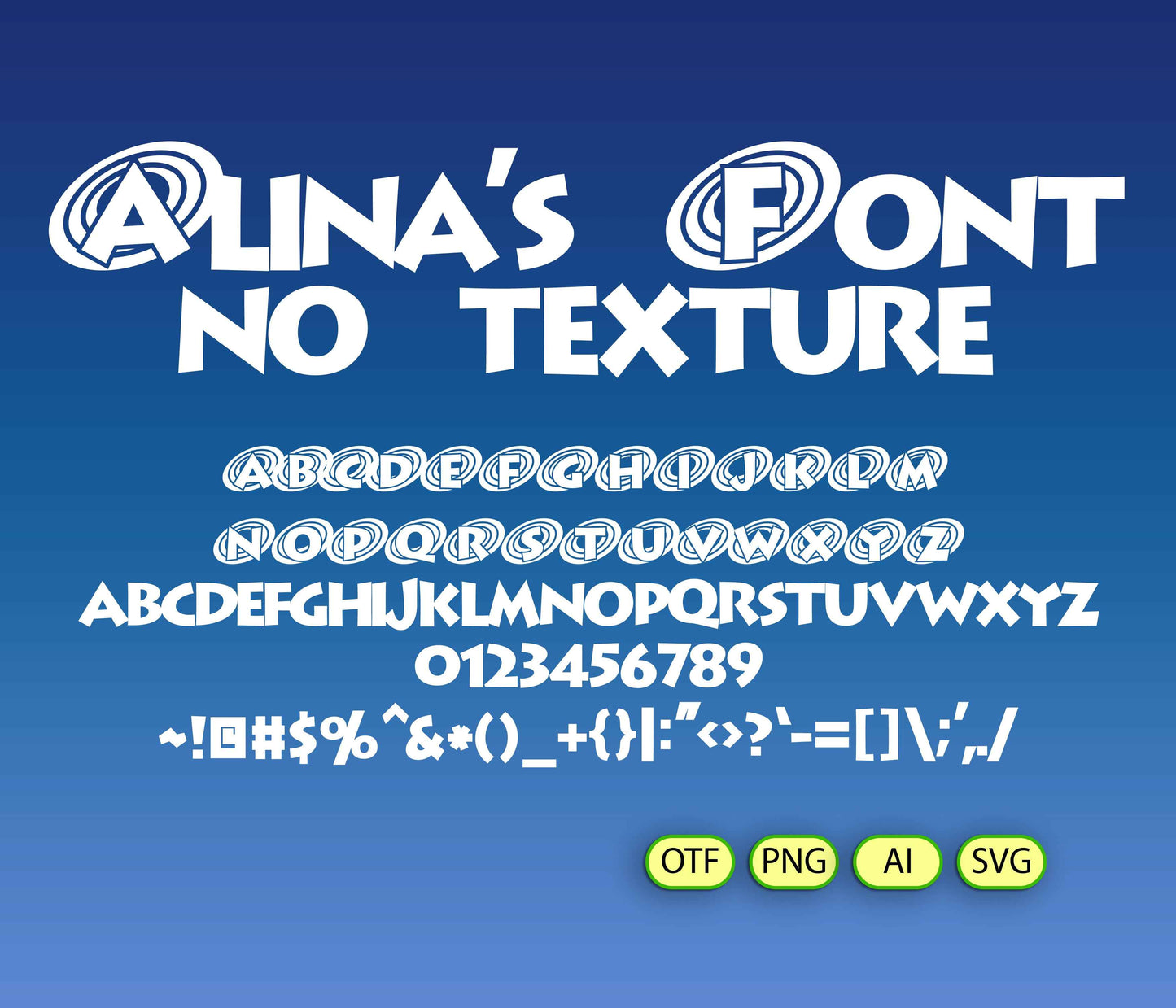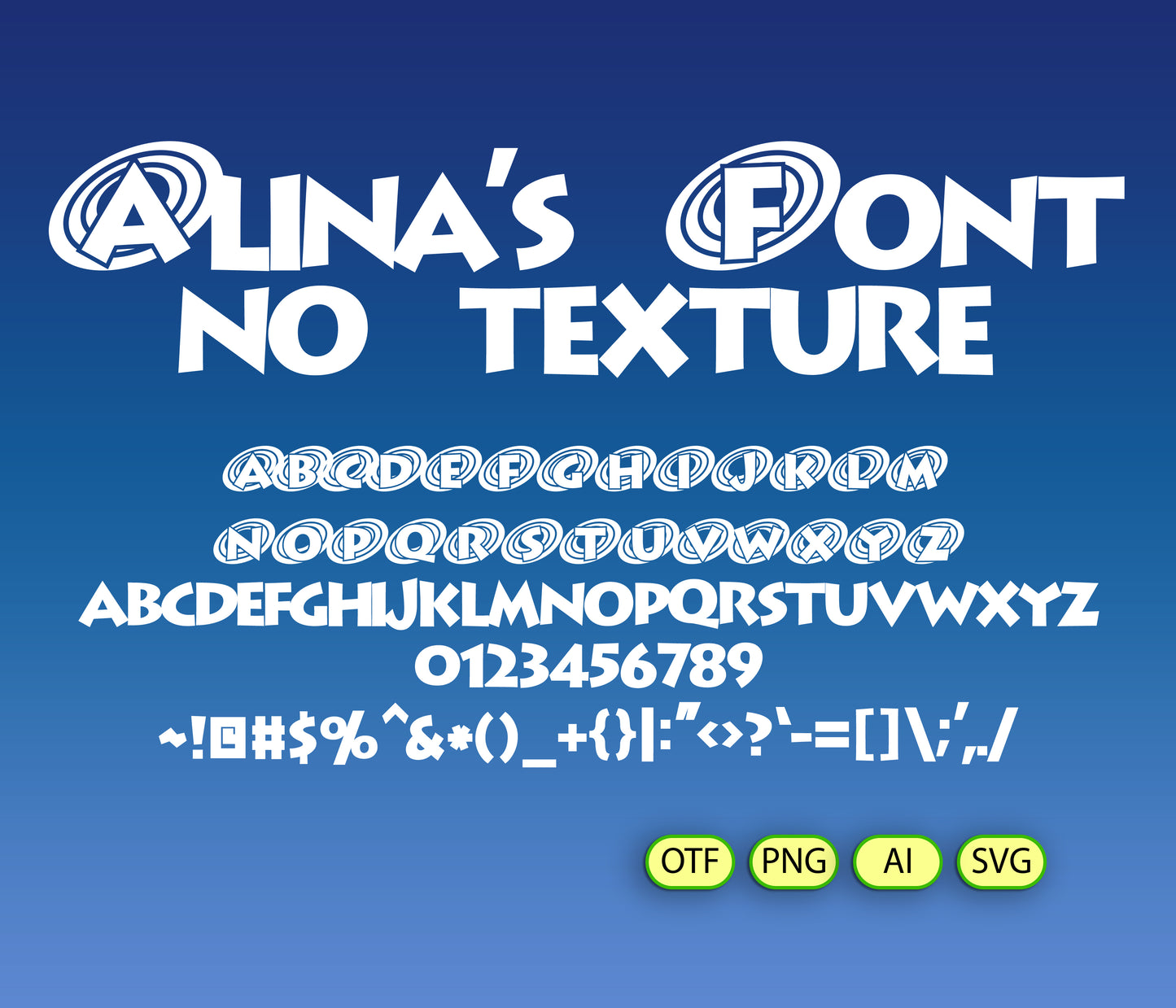
Cosmic Court Font
Cosmic Court Font: Capture the Fun of Intergalactic Basketball
Slam dunk your design projects with the Cosmic Court font, inspired by the high-energy and playful spirit of an iconic basketball-themed movie featuring cartoon characters and real athletes. This font is perfect for sports fans and designers looking to infuse their work with a bit of nostalgia and dynamic action.
The Cosmic Court font features bold, rounded characters that mimic the motion and excitement of an out-of-this-world basketball game. Its fun and energetic style is ideal for capturing the youthful and adventurous vibe of a universe where toons and hoops collide.
Ideal for sports-themed designs, promotional materials for events, or any project that aims to evoke the lively essence of cartoon-meets-basketball action, this font brings the excitement of an intergalactic game to your creative endeavors. Whether you're crafting visuals for a space-themed sports event or designing fun, animated athletic content, the Cosmic Court font adds a playful bounce to your designs.